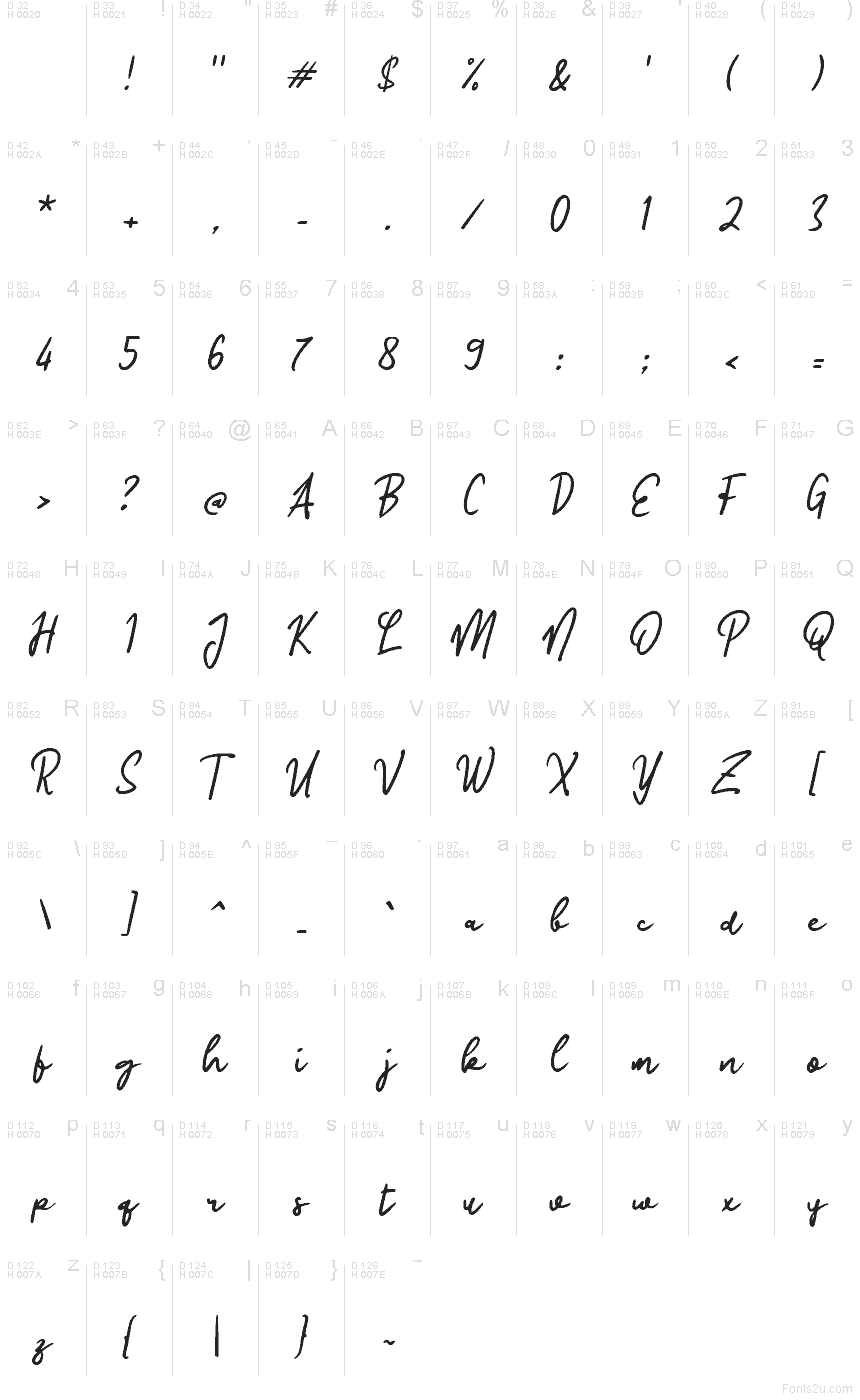
Oatmoon Signature
Oatmoon Signature font by wep is a free handwritten font that captures the feel of a real ink pen gliding across smooth paper. Its flowing, slightly slanted strokes and gentle loops give it a relaxed, natural signature look—confident without feeling stiff or over-polished. The letters connect in an easy rhythm, so names, taglines, and short phrases read like a personal autograph rather than a generic script.
Using Oatmoon Signature as a branding accent instantly adds a human touch to logos, business cards, product packaging, and social media graphics. This free font also shines on wedding stationery, boutique labels, and digital signatures where you want something elegant but still approachable. Try pairing it with a clean sans serif for body text and keep Oatmoon Signature larger and spacious, letting those smooth curves breathe.